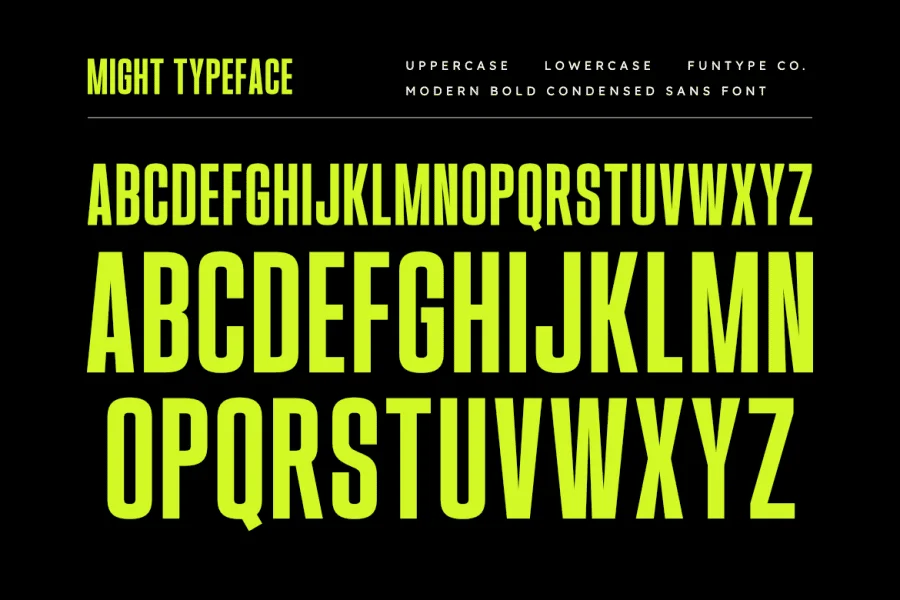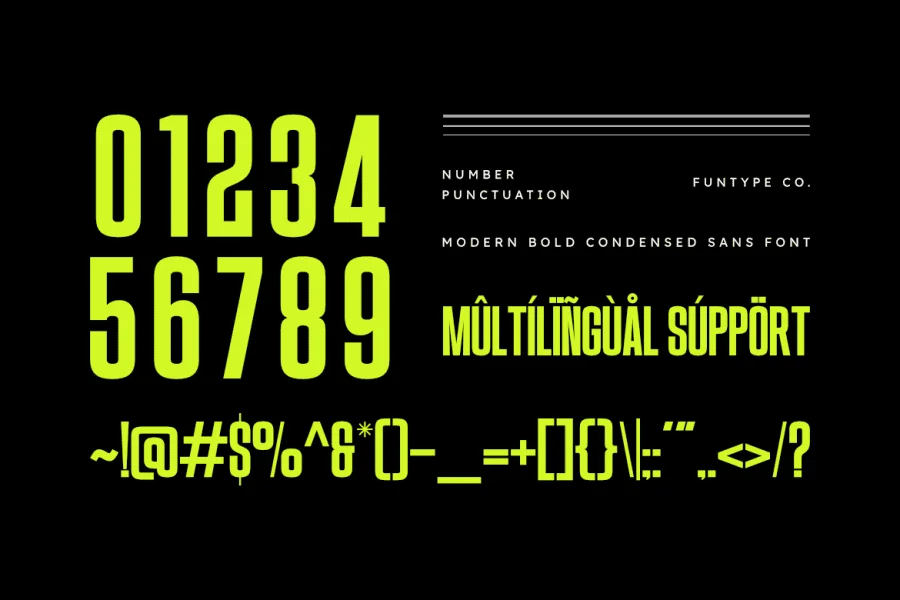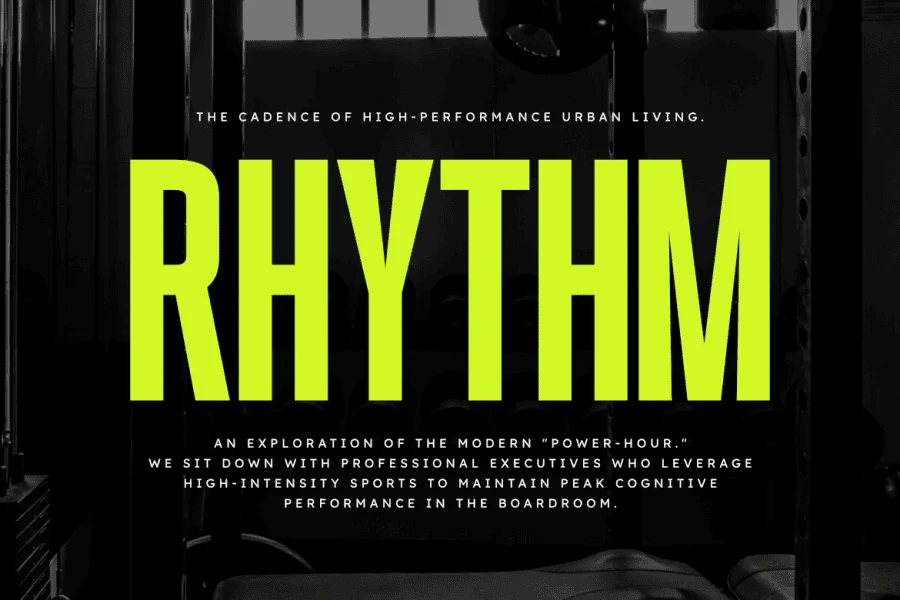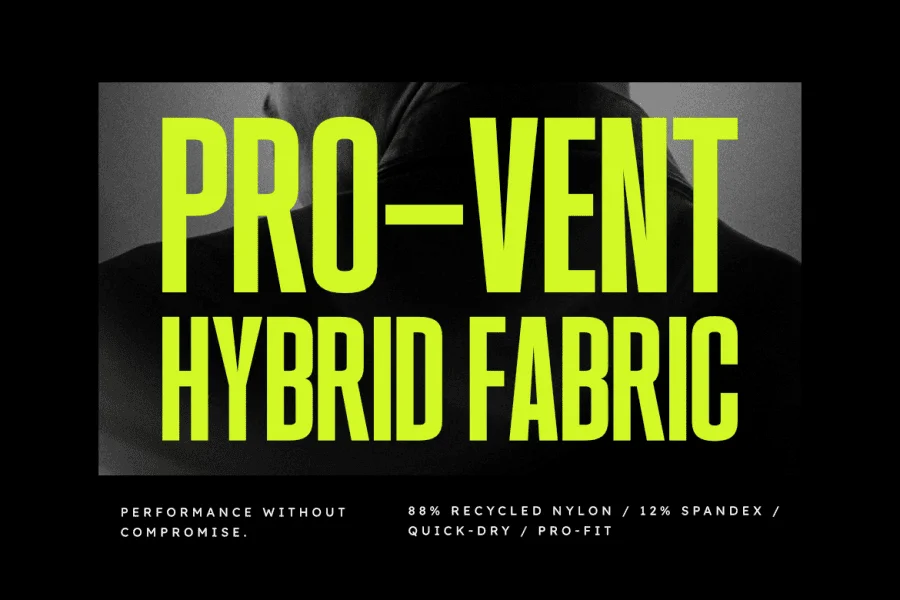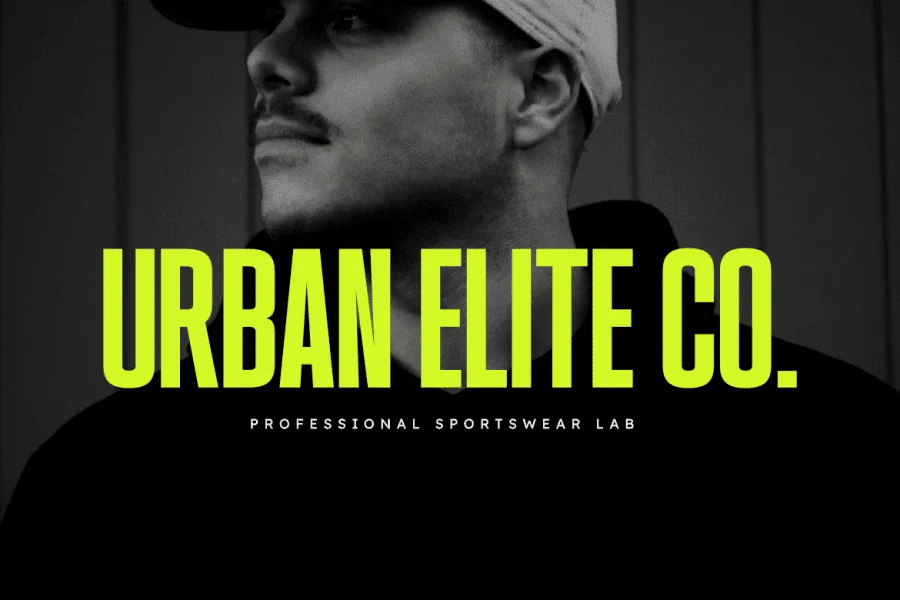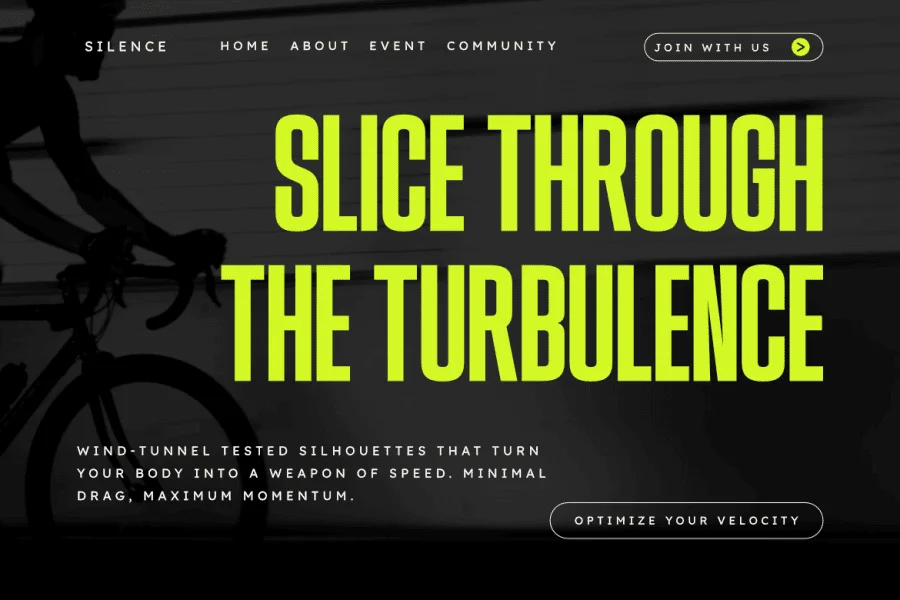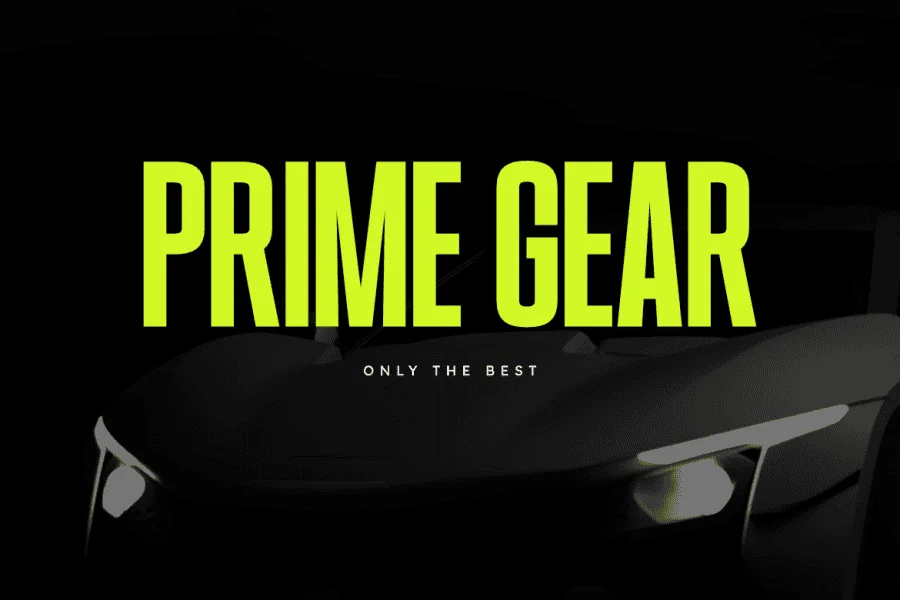
Might is a sophisticated and powerful modern bold condensed sans serif font, thoughtfully designed to capture the essence of maximum visual impact and contemporary storytelling. With its heavy, ultra-compressed vertical structure and sharp, aggressive geometric inner cutouts, Might offers a professional aesthetic that brings a touch of commanding presence to any creative project.
This font is the ideal choice for designers looking to add a professional yet high-impact touch to their work. Whether you are crafting a striking urban logo, a sleek e-sports brand identity, or bold cinematic layouts, Might provides a seamless blend of modern edge and raw competitive power.